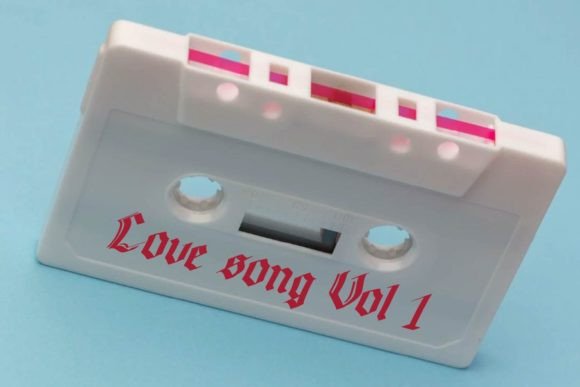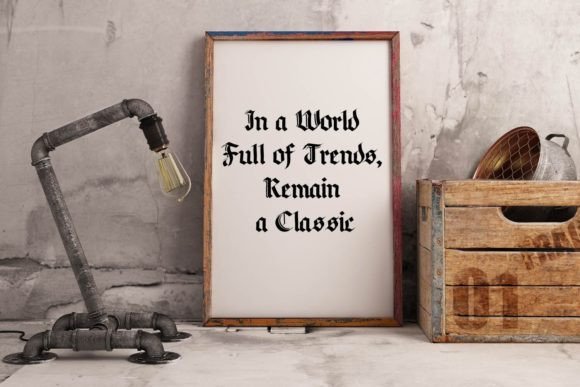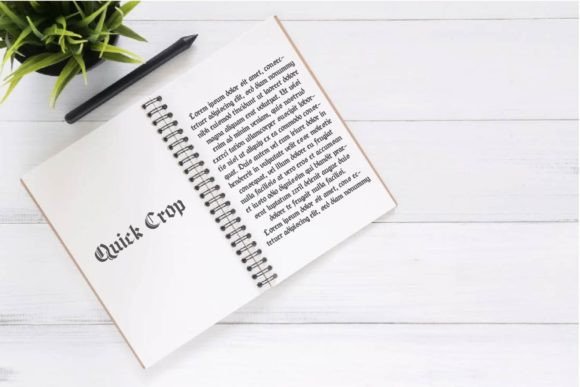
Introduction to Quickcrop Font
Quickcrop is a modular blackletter typeface.
It has a unique design and experimental shape It can be used in all kinds of projects from branding, editorial to fashion graphics and packaging.
Quickcrop Font offers exceptional quality and versatility, making it a valuable addition to your design toolkit. Whether you’re creating for personal projects or commercial use, Quickcrop Font delivers professional results.